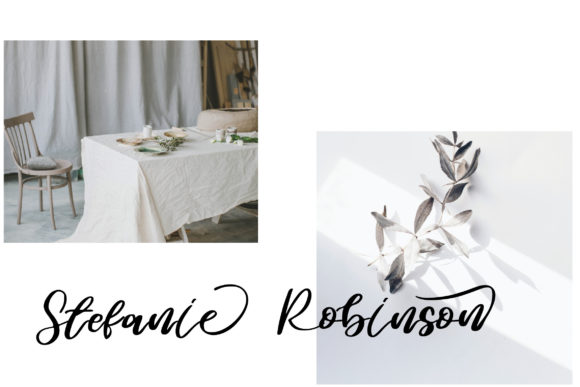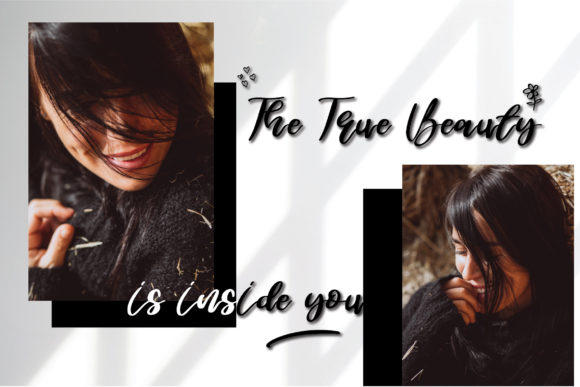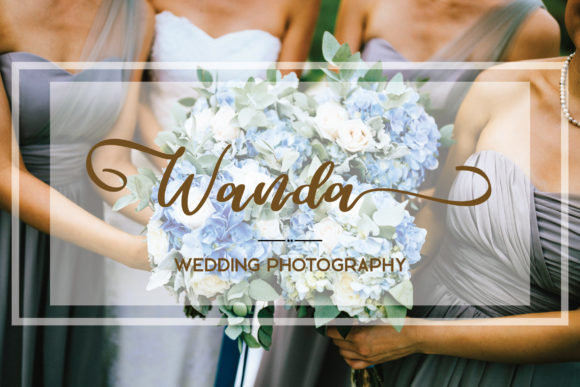
Introduction to Marthena Swans Font
As a designer, you’ve likely found yourself stuck in a creative rut, staring blankly at your screen, searching for that perfect font to bring your project to life. And then, like a breath of fresh air, you stumble upon a gem that elevates your entire design game. For us, that gem is the Marthena Swans Font – a chic, refined script font that exudes sophistication and elegance.
With its stylish alternates and ligatures, Marthena Swans Font is the perfect match for any creative project, whether you’re working on a high-end branding campaign or a free download for a design resource website. Its PUA encoding ensures seamless access to all glyphs and swashes, making it a valuable addition to any designer’s toolkit.
What sets Marthena Swans Font apart from other design resources is its versatility and high quality. Whether you’re working on a project with a transparent background or need a font that can hold its own against bold graphics, Marthena Swans Font is sure to deliver.
Key Features of Marthena Swans Font
- High-quality design resource ideal for creative projects and print materials.
- Includes a transparent background, allowing for seamless integration with various design elements.
- Features a unique, elegant design with intricate details, perfect for creating visually stunning graphics.
Honest Review: Marthena Swans Font
- High-quality design: The Marthena Swans Font is well-designed and offers a unique aesthetic that sets it apart from other fonts.
- Transparent background: This feature makes it easy to use the font on any background without worrying about it getting lost.
While the Marthena Swans Font is a great resource, there are a few limitations to consider:
- Only available in a few weights: The font is only available in a few weights, which may limit its use in certain design projects.
- No italics or bold options: Unfortunately, the font does not offer italics or bold options, which may be a drawback for some designers.
Overall, I’m impressed with the Marthena Swans Font and would recommend it to designers who are looking for a high-quality, unique font for their creative projects.
Tips for Getting the Most Out of Marthena Swans Font
Experiment with different font sizes, colors, and combinations to unlock the full potential of the Marthena Swans Font. Use it for creative projects, such as branding, graphics, and illustrations.
The Marthena Swans Font is ideal for various design projects, including logos, business cards, and social media graphics. Its unique design and high-quality output make it a valuable addition to any design resource.